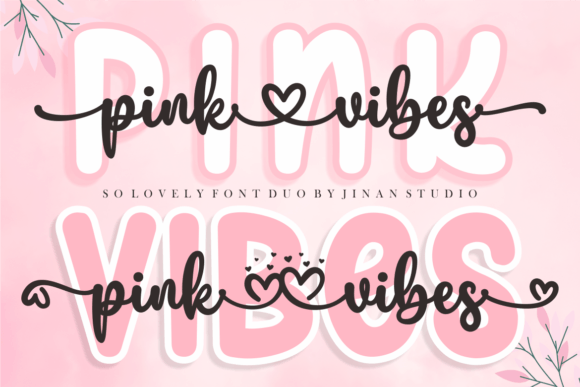
Introducing Pink Vibes Duo Font - the perfect duo font for anyone who wants to add a touch of romance and elegance to their designs! Designed by jinanstd, this font family includes both a script and sans-serif version, making it incredibly versatile for any project.
Whether you're designing greeting cards, creating social media graphics, or crafting headlines, Pink Vibes Duo Font has got you covered. Its delicate yet stylish design will elevate any project, making it perfect for weddings, engagements, and other special occasions.
One of the standout features of Pink Vibes Duo Font is its PUA encoding. This means that accessing all of the glyphs and swashes is incredibly easy, allowing you to add those perfect finishing touches to your designs effortlessly.
This font family is a must-have for anyone who wants to create stunning, high-quality designs that truly stand out. So why not add a touch of romance and elegance to your next project with Pink Vibes Duo Font?